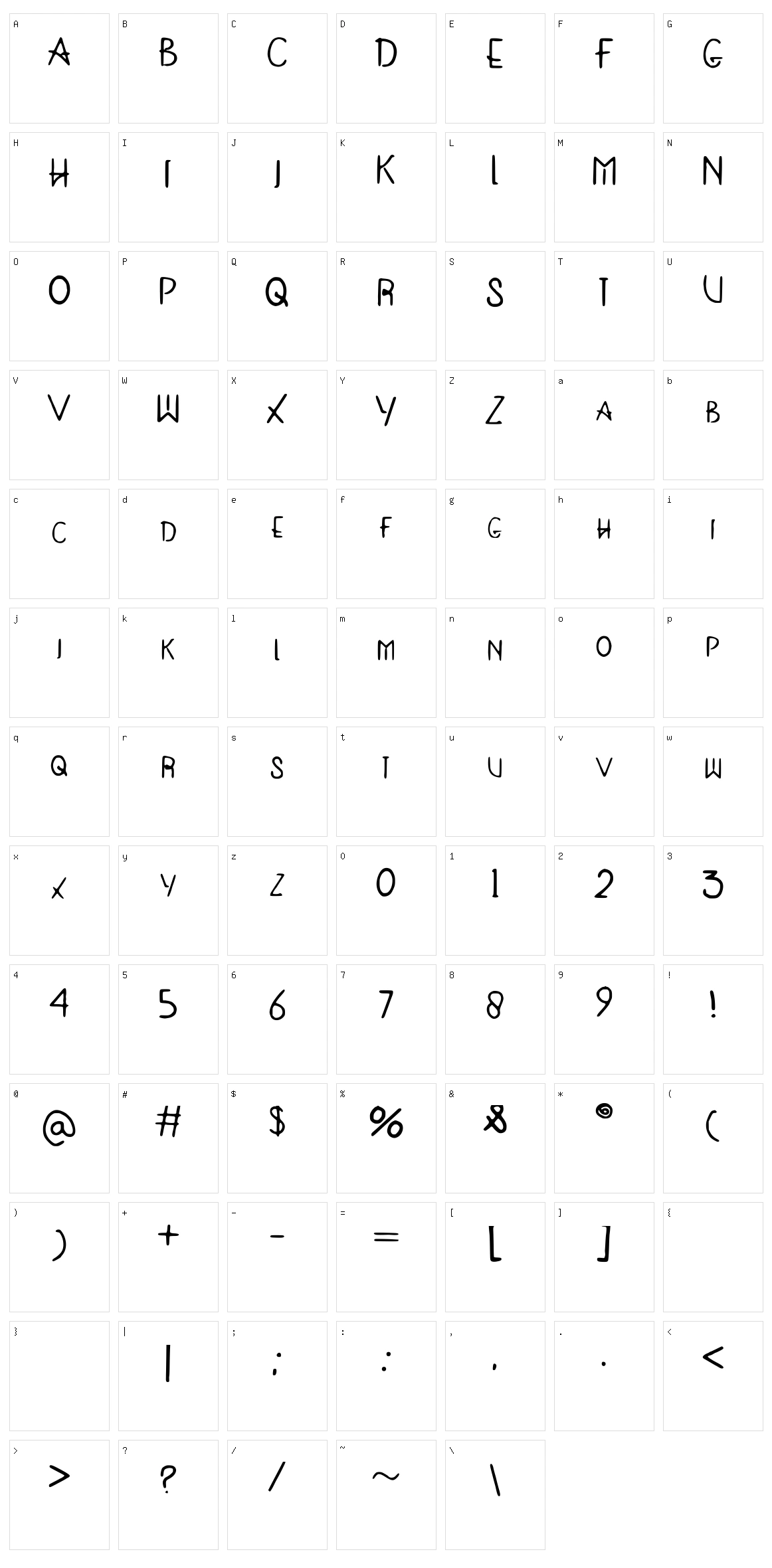
The free font Human is carefully designed by Ben Runneboom, showcasing a thoughtful balance of creativity and usability and falls under the Script font style. When you download the ZIP file, it contains only 12.9 KB of font files, making it lightweight and quick to download. Please review the license details below to understand permitted usage and distribution rights. If license information is not available, we recommend using this font for personal projects only or contacting the author directly for commercial usage permissions.